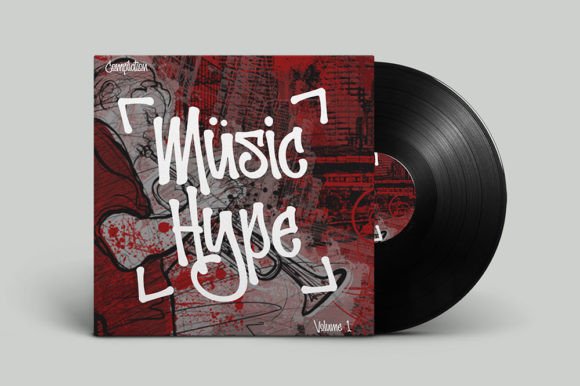
Diamond History Font
Diamond History is a cool, graffiti-style display font. Stylish and trendy, this font is suitable for a large variety of projects that need an urban-inspired accent.